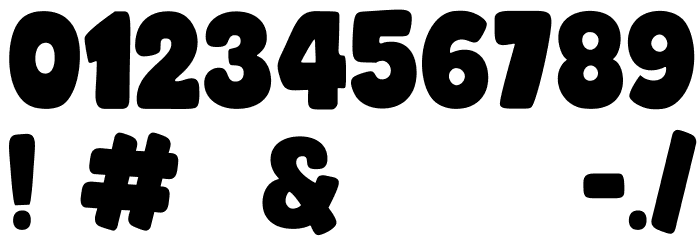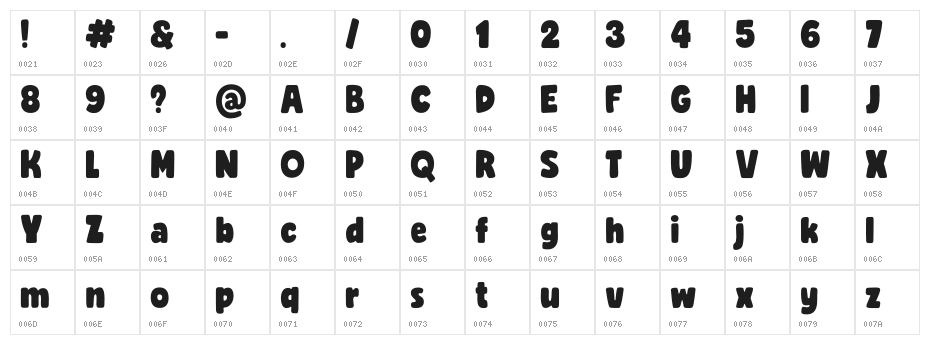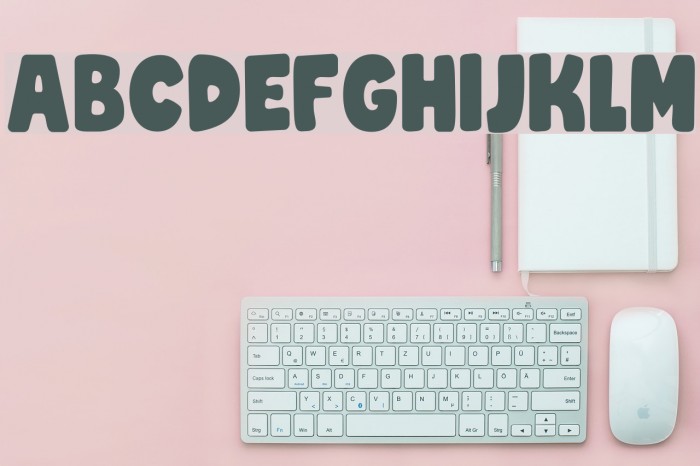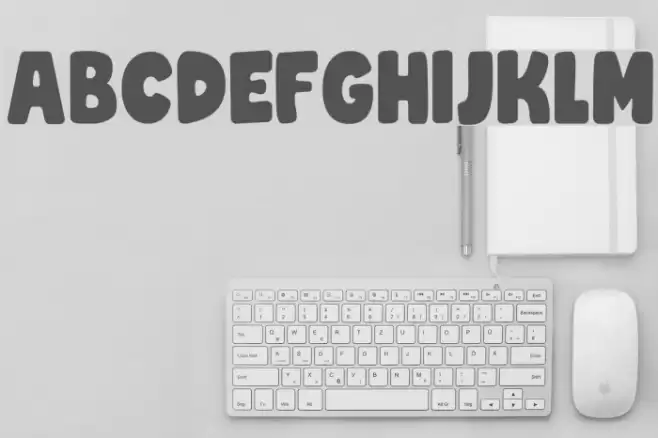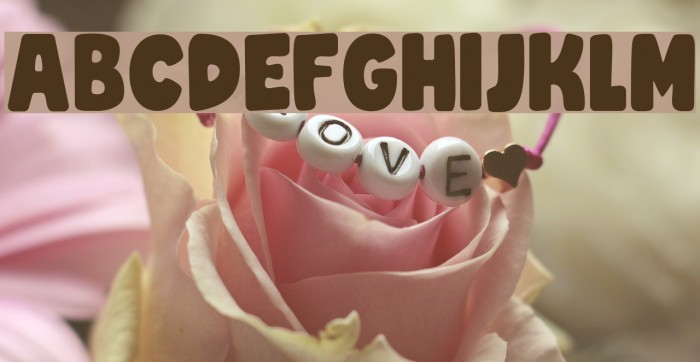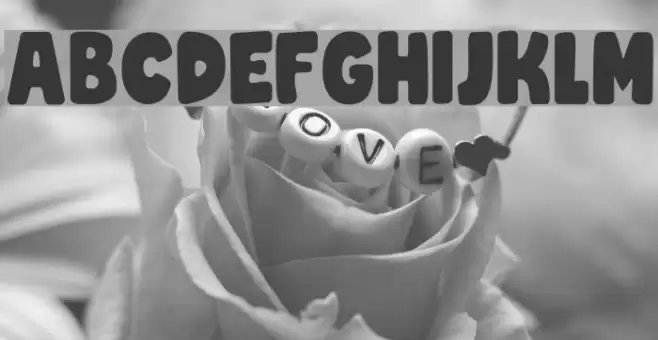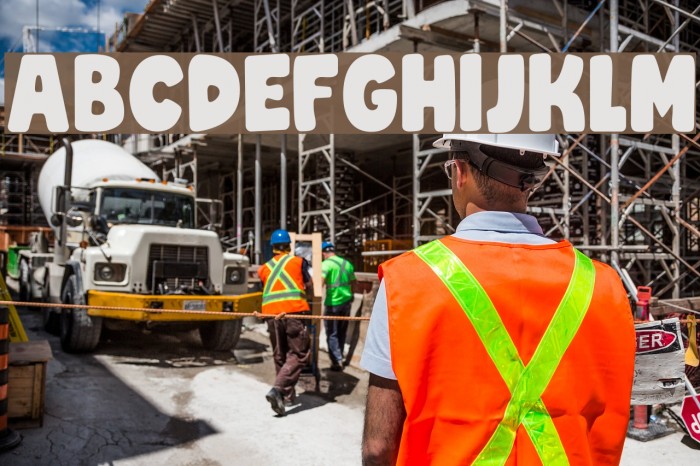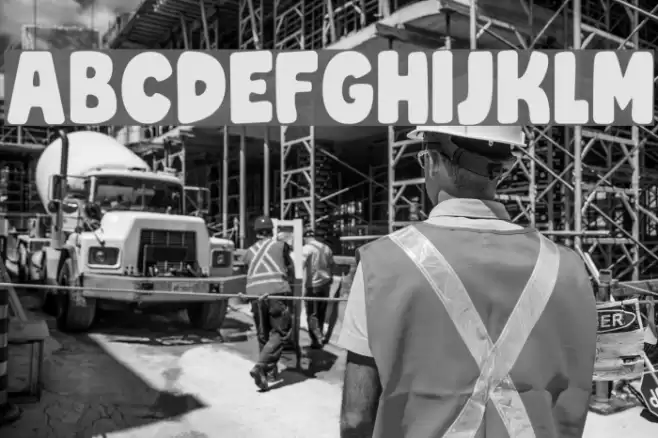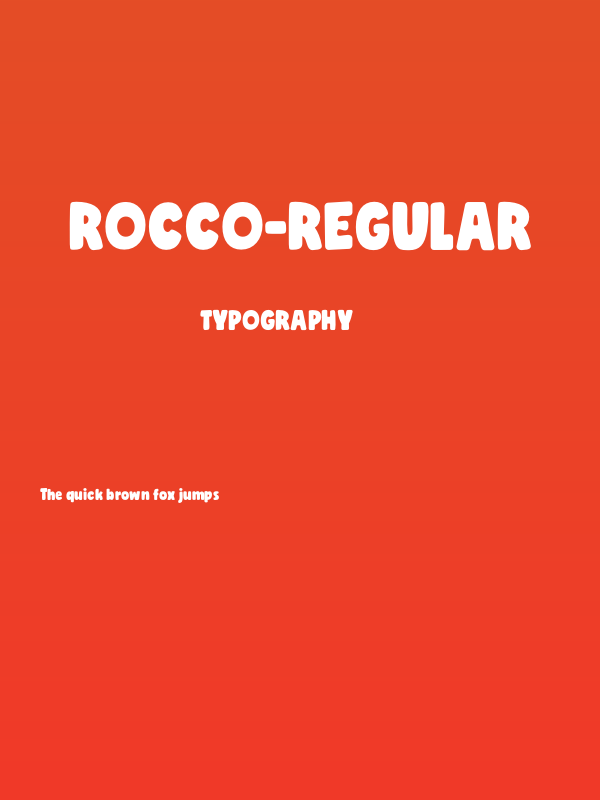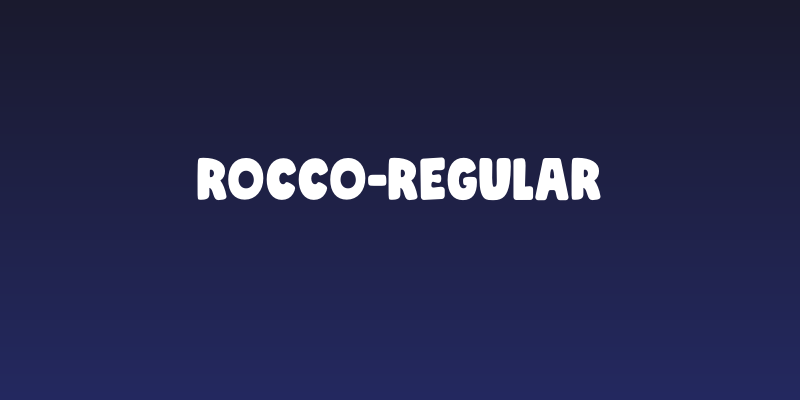
Rocco-Regular Font
Rocco-Regular Description
This font features a bold and playful design with rounded edges and a thick, uniform stroke. The characters are well-spaced, providing a balanced and approachable appearance. The uppercase and lowercase letters maintain a consistent style, enhancing readability while adding a touch of whimsy. The numerals and special characters are equally bold, ensuring they stand out and complement the overall aesthetic. This font's design is ideal for projects that require a friendly and inviting tone, making it suitable for a variety of creative applications.
Overall StylePlayful, Modern
Proposed ProjectsIdeal for children's books, playful branding, posters, and social media graphics.